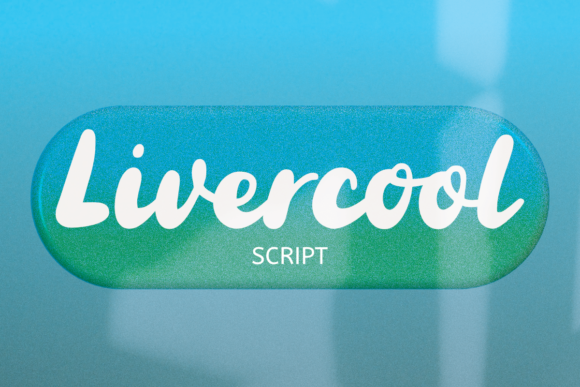
In a realm where aesthetics reign supreme, let Livercool Font be your muse, your creative accomplice in crafting visual enchantment. This captivating script font, a creation of Epiclinez, is a symphony of boldness and playfulness, ready to ignite your designs with an infectious energy.
Livercool Font is the perfect partner for conjuring wedding invitations that exude elegance and heartfelt warmth. Its graceful strokes, reminiscent of a calligrapher's masterful hand, will transform your words into an artistic masterpiece, setting the tone for a day filled with love and celebration.
Unleash your imagination and let Livercool Font dance across your social media posts, captivating your audience with its vivacious charm. Its versatility knows no bounds, effortlessly adapting to logos, branding, apparel, and beyond. Elevate your designs to new heights, leaving an indelible mark on the digital landscape.
Dive into the depths of Liverpool's opentype features, where alternate letters and ligatures await, ready to unlock a world of creative possibilities. Experiment with diverse character combinations, exploring unique letterforms that add layers of intrigue and visual interest to your designs.
Transcend linguistic boundaries with Livercool Font's multilingual prowess. Its PUA encoding allows it to effortlessly embrace a multitude of languages, ensuring your message resonates with a diverse audience. Craft designs that speak universally, transcending cultural barriers.
Embrace Livercool Font, the ultimate fusion of aesthetics and versatility. Let its vibrant energy infuse your creations with a touch of playfulness and boldness. Transform your designs into captivating expressions of art, leaving an enduring impression on all who encounter them.